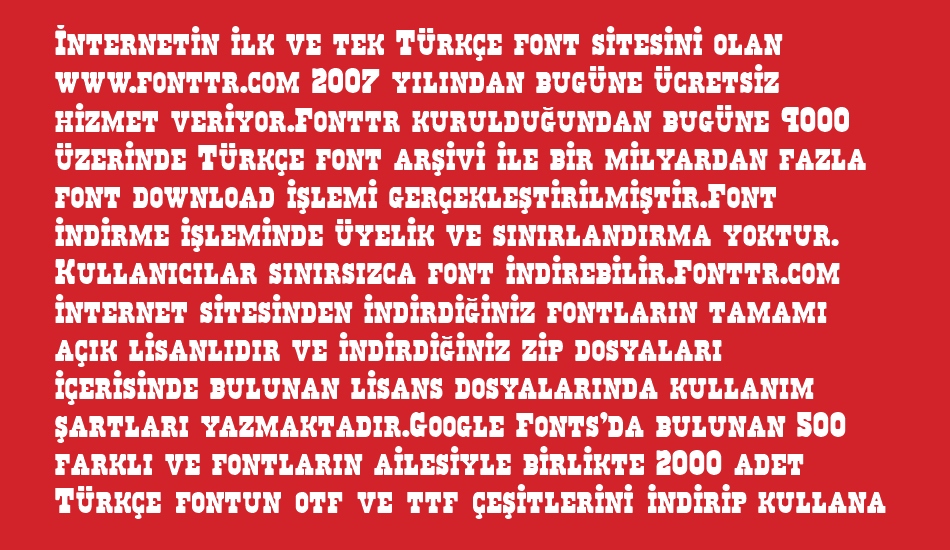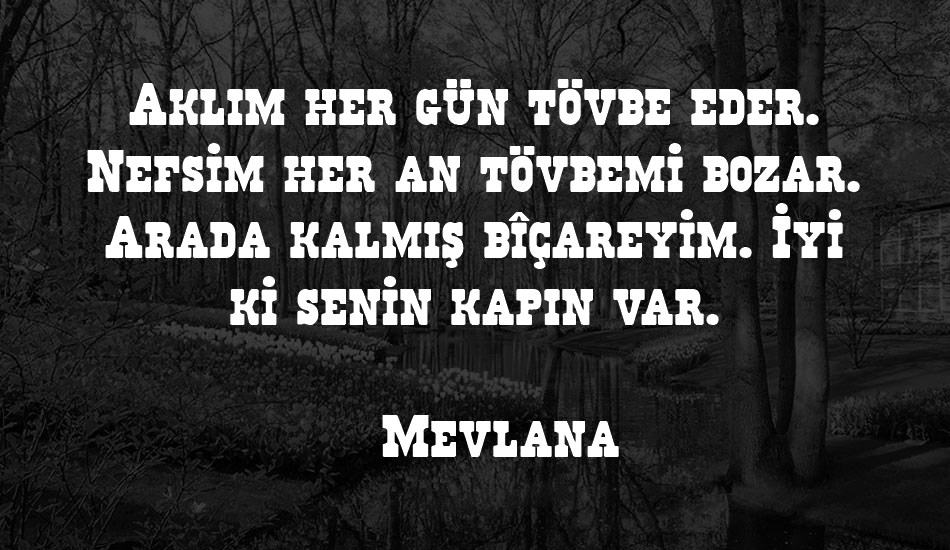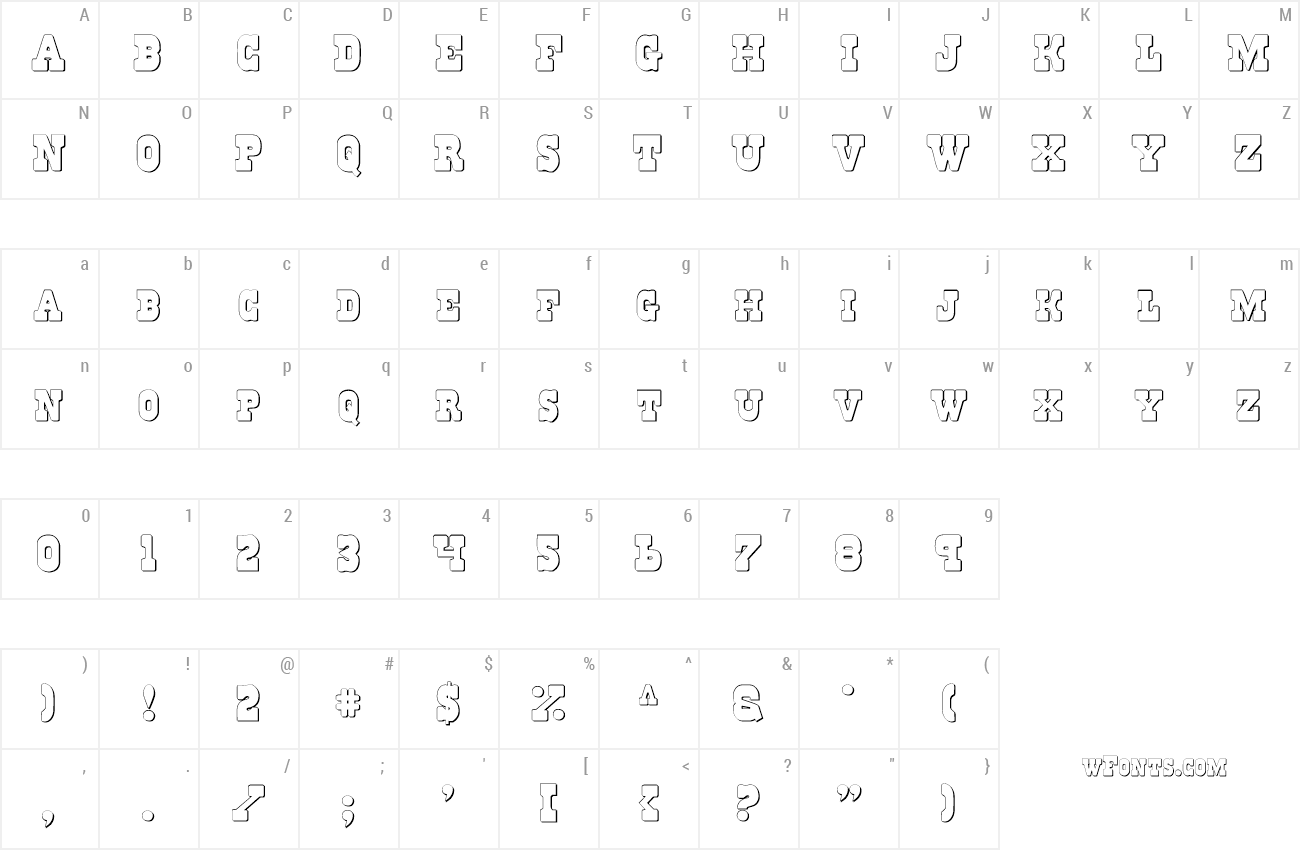
Regulators Font . Regulators font is available for free download for noncommercial, personal. The regulators font has been downloaded 14,759 times. A typeface with 15 styles, available from adobe fonts for. explore regulator nova designed by rian hughes at adobe fonts. regulators à € by iconian fonts. download and install the regulators font by iconian fonts. free download of regulators font family with 5 styles. download regulators font for free! Released in 2003 by iconian fonts and. Moreover, you can embed it to your website. regulators font is a fancy, western font designed by iconian fonts.
Moreover, you can embed it to your website. Regulators font is available for free download for noncommercial, personal. download regulators font for free! free download of regulators font family with 5 styles. Released in 2003 by iconian fonts and. download and install the regulators font by iconian fonts. regulators à € by iconian fonts. regulators font is a fancy, western font designed by iconian fonts. explore regulator nova designed by rian hughes at adobe fonts. A typeface with 15 styles, available from adobe fonts for.
Regulators Font explore regulator nova designed by rian hughes at adobe fonts. The regulators font has been downloaded 14,759 times. download and install the regulators font by iconian fonts. Regulators font is available for free download for noncommercial, personal. regulators font is a fancy, western font designed by iconian fonts. Moreover, you can embed it to your website. explore regulator nova designed by rian hughes at adobe fonts. Released in 2003 by iconian fonts and. A typeface with 15 styles, available from adobe fonts for. free download of regulators font family with 5 styles. regulators à € by iconian fonts. download regulators font for free!
Regulators Font Download For Free, View Sample Text, Rating And More Regulators Font free download of regulators font family with 5 styles. regulators à € by iconian fonts. regulators font is a fancy, western font designed by iconian fonts. explore regulator nova designed by rian hughes at adobe fonts. Moreover, you can embed it to your website. Regulators font is available for free download for noncommercial, personal. download. Regulators Font.
Download Regulators Outline Font Free Font Download Regulators Font download and install the regulators font by iconian fonts. free download of regulators font family with 5 styles. download regulators font for free! explore regulator nova designed by rian hughes at adobe fonts. A typeface with 15 styles, available from adobe fonts for. Moreover, you can embed it to your website. Released in 2003 by iconian. Regulators Font.
Regulators Shadow font Regulators Font free download of regulators font family with 5 styles. Regulators font is available for free download for noncommercial, personal. regulators font is a fancy, western font designed by iconian fonts. explore regulator nova designed by rian hughes at adobe fonts. download regulators font for free! A typeface with 15 styles, available from adobe fonts for. Released. Regulators Font.
Regulator Nova Font Free Download Regulators Font free download of regulators font family with 5 styles. Moreover, you can embed it to your website. regulators à € by iconian fonts. The regulators font has been downloaded 14,759 times. download regulators font for free! regulators font is a fancy, western font designed by iconian fonts. Released in 2003 by iconian fonts and. download. Regulators Font.
Regulators Font Free Download Regulators Font regulators à € by iconian fonts. Released in 2003 by iconian fonts and. Moreover, you can embed it to your website. download and install the regulators font by iconian fonts. Regulators font is available for free download for noncommercial, personal. explore regulator nova designed by rian hughes at adobe fonts. download regulators font for free! A. Regulators Font.
Regulators font Regulators Font regulators à € by iconian fonts. Released in 2003 by iconian fonts and. The regulators font has been downloaded 14,759 times. Regulators font is available for free download for noncommercial, personal. explore regulator nova designed by rian hughes at adobe fonts. download regulators font for free! Moreover, you can embed it to your website. free download. Regulators Font.
Regulators Font Regulators font is available for free download for noncommercial, personal. regulators font is a fancy, western font designed by iconian fonts. Moreover, you can embed it to your website. Released in 2003 by iconian fonts and. free download of regulators font family with 5 styles. A typeface with 15 styles, available from adobe fonts for. download and. Regulators Font.
Regulator Font Free Download Regulators Font The regulators font has been downloaded 14,759 times. Released in 2003 by iconian fonts and. regulators font is a fancy, western font designed by iconian fonts. download and install the regulators font by iconian fonts. download regulators font for free! Regulators font is available for free download for noncommercial, personal. free download of regulators font family. Regulators Font.